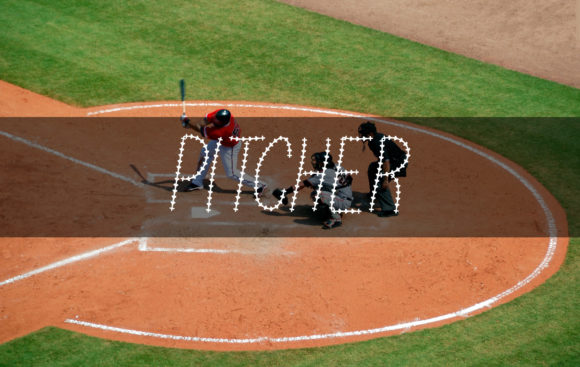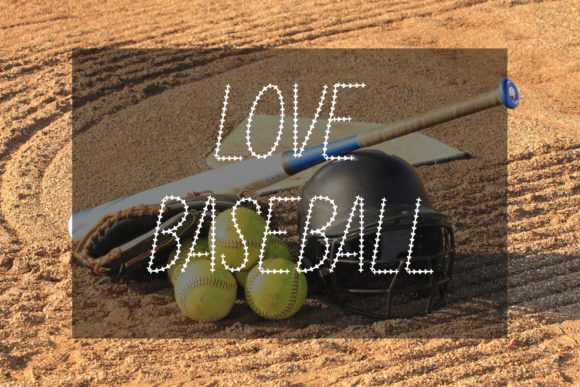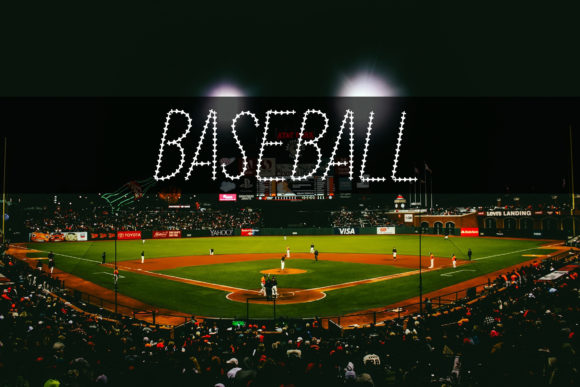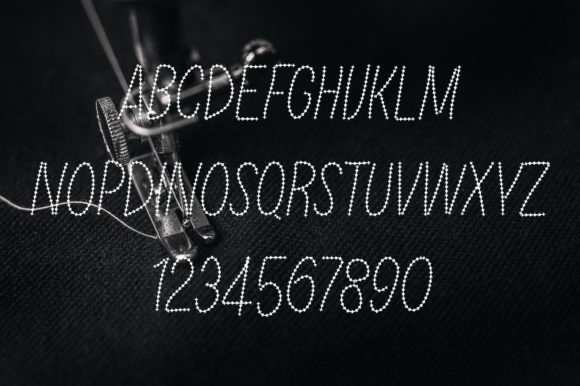
The Perfect Pitch: How Baseball Stitch Font Can Elevate Your Designs
I’ll never forget the time I was working on a project for a client who wanted a logo that screamed “adventure” and “authenticity.” I had a blast brainstorming ideas, but when it came to choosing the perfect font, I hit a roadblock. That’s when I stumbled upon the Baseball Stitch font, and it was a game-changer! ✨
As a designer, crafty hobbyist, or creative enthusiast, you’re always on the lookout for fonts that can add a unique touch to your projects. Baseball Stitch is a sport-inspired decorative font that’s perfect for adding an adventurous and authentic feel to your designs. In this article, we’ll dive into the world of Baseball Stitch, exploring its features, how to use it, and some similar fonts you might love.
An Honest Review of Baseball Stitch Font
- 🎉 Unique and eye-catching design: Baseball Stitch Font is unlike any other font out there. Its sporty, stitched look is sure to turn heads.
- ✅ Highly versatile: This font can be used for a wide range of projects, from logos and branding to crafts and DIY tutorials.
- ✨ Easy to read: Despite its decorative nature, Baseball Stitch Font is surprisingly easy to read, making it perfect for headlines, titles, and short paragraphs.
While Baseball Stitch Font is an amazing addition to any design project, there are a few things to keep in mind:
- 🤔 Limited use in body text: Due to its decorative nature, Baseball Stitch Font might not be the best choice for long blocks of body text.
- ⚠️ May not work well in small sizes: This font is best used in larger sizes, where its details can shine. Using it in small sizes might make it look pixelated or blurry.
The Backstory Behind Baseball Stitch Font
The story behind Baseball Stitch Font is one of passion and creativity. Imagine a designer who’s an avid baseball fan, looking for a way to capture the essence of the game in a font. After months of research and experimentation, Baseball Stitch Font was born – a font that combines the nostalgic feel of vintage baseball with modern design sensibilities.
| Font Name | Baseball Stitch Font |
| Author | Vladimir Carrer |
Q: What is Baseball Stitch Font?
A: Baseball Stitch Font is a sport-inspired decorative font designed to add an adventurous and authentic feel to your designs.